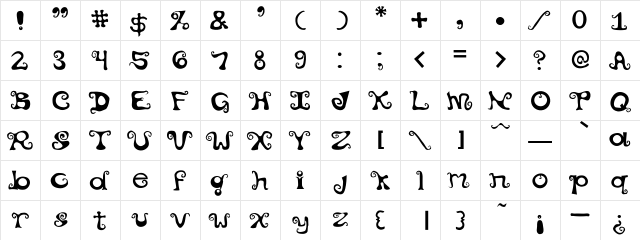
Marvelous Regular Font Preview
Marvelous Regular
Design Context for Marvelous Typeface
Marvelous is a composed and adaptable typeface that performs quietly and consistently across a wide range of design contexts.